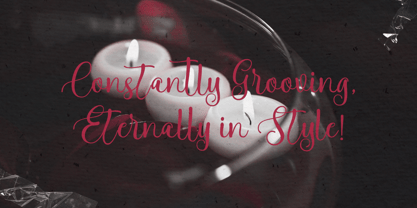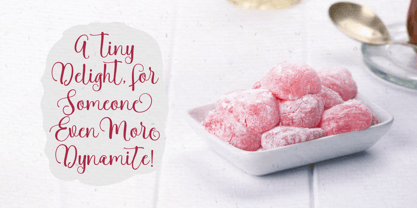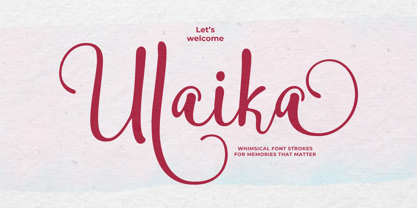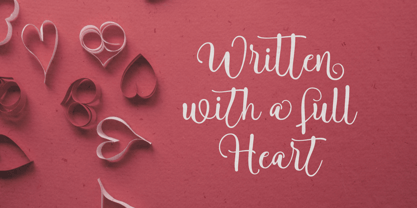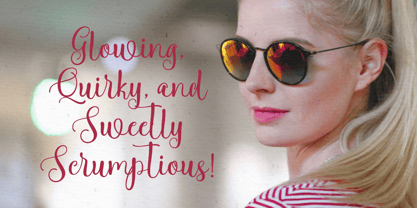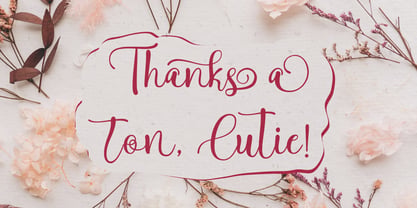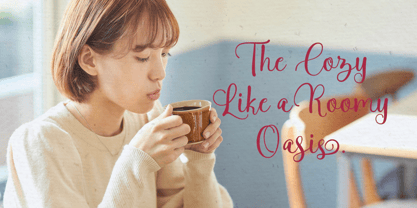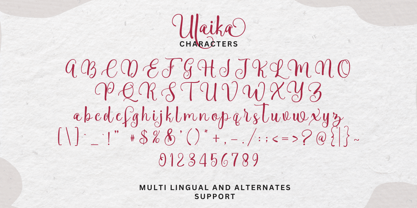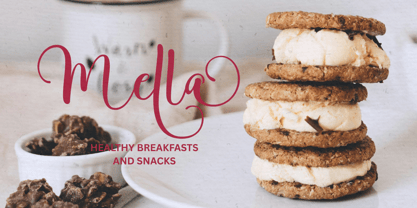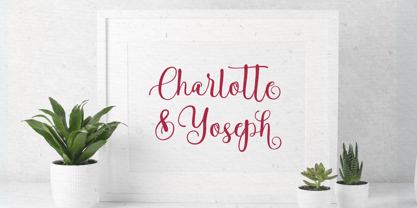
Ulaika
by Gatype
The Ulaika Font Family was designed by khaidir and published by Gatype. Ulaika contains 1 styles. More about this family
Say hello to Ulaika — a modern casual script font with playful energy and effortless charm. Designed for display, Ulaika features stylish curves, smooth strokes, and expressive alternates that give your text a personal, handcrafted feel.
With a full set of swashes and stylistic alternates, Ulaika is perfect for adding personality to every project — from weddings, branding, invitations, and logos, to heartfelt quotes. It also shines in event stationery, Instagram graphics, product packaging, greeting cards, and journaling.
Whether you're creating a bold identity or something soft and sentimental, Ulaika brings the perfect balance of fun and elegance to your creative toolbox.
Uppercase & lowercase
Tons of alternates & swashes
Multilingual support